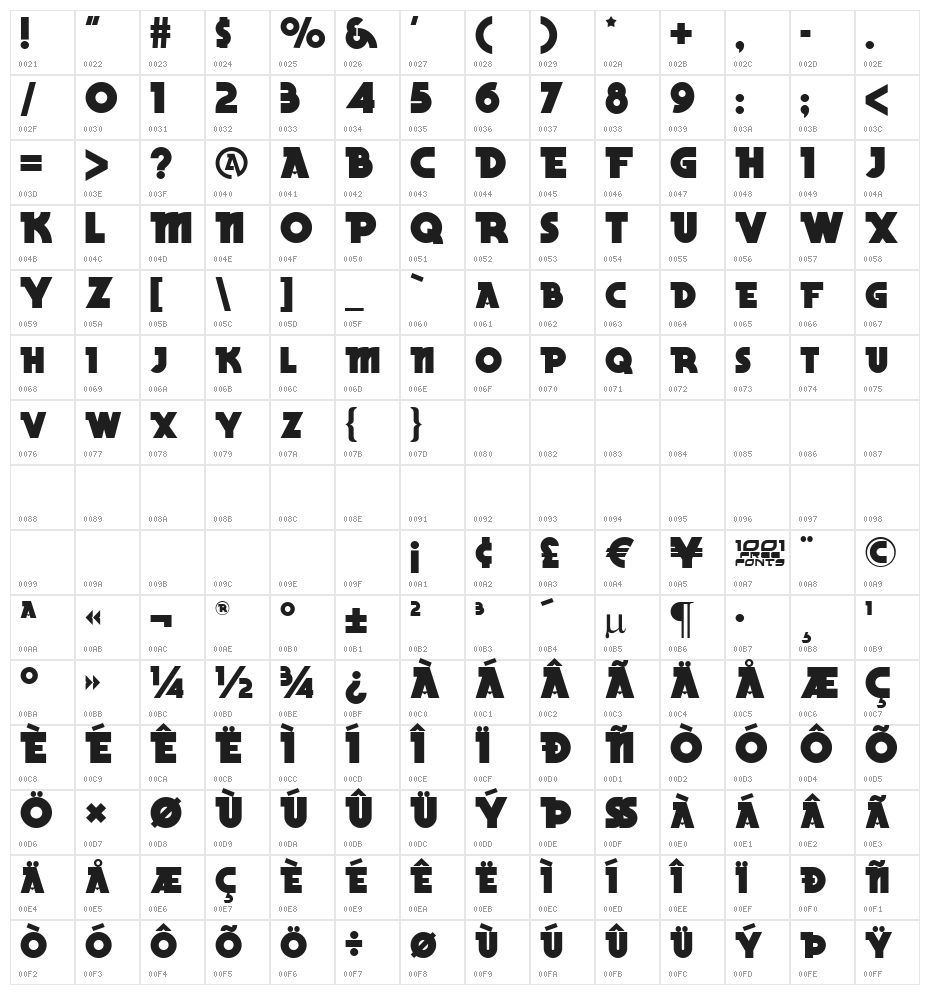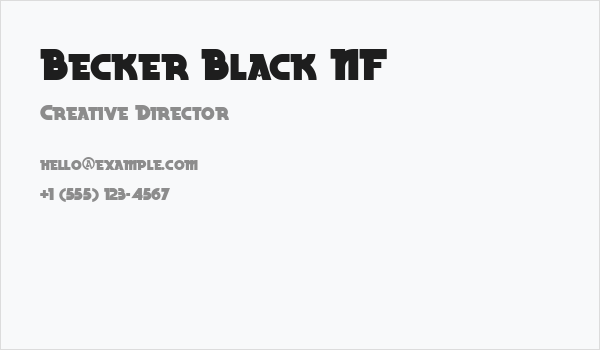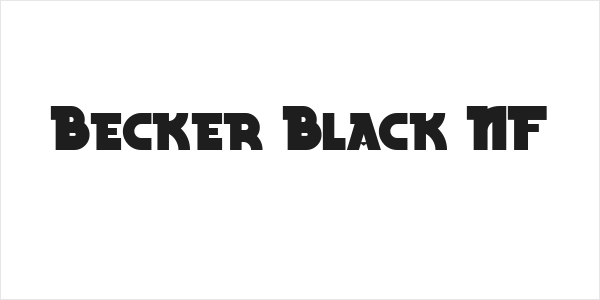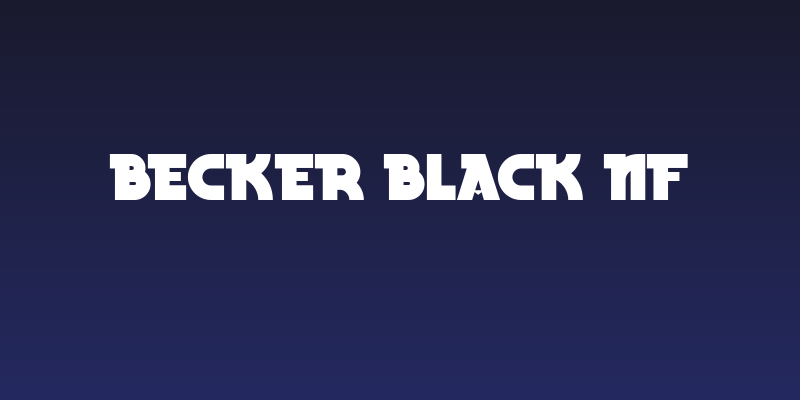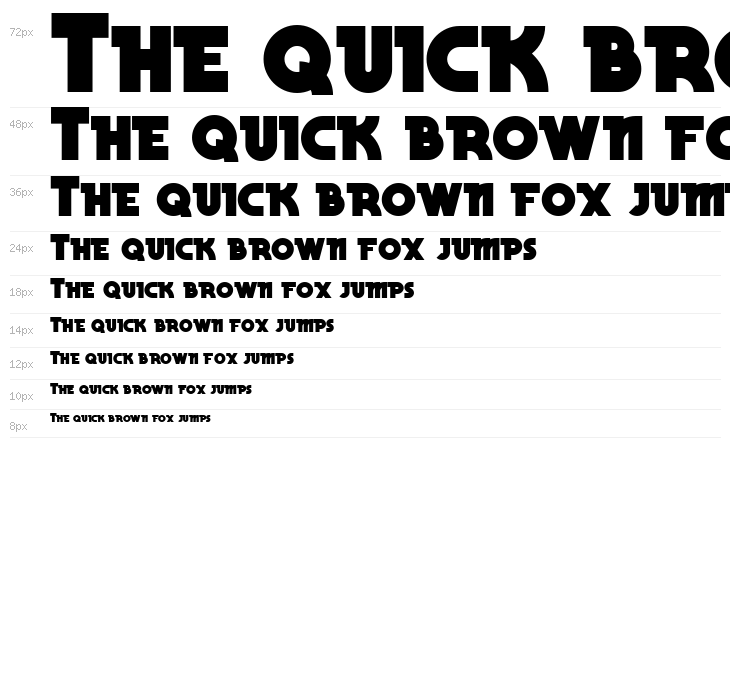
Becker Black NF Font
Becker Black NF Description
This font exhibits a bold and striking appearance with its thick, geometric letterforms. The characters are crafted with a strong emphasis on horizontal and vertical lines, creating a sense of stability and power. The font's design is reminiscent of mid-20th-century styles, with a modern twist that makes it suitable for contemporary use. Its boldness ensures high visibility, making it ideal for attention-grabbing headlines and titles. The uniformity in stroke width across characters contributes to a cohesive and balanced look, while the unique shapes of certain letters add a touch of individuality.
| Overall Style | Modern, Vintage |
| Proposed Projects | Ideal for posters, branding, logos, and any project requiring a bold statement. |